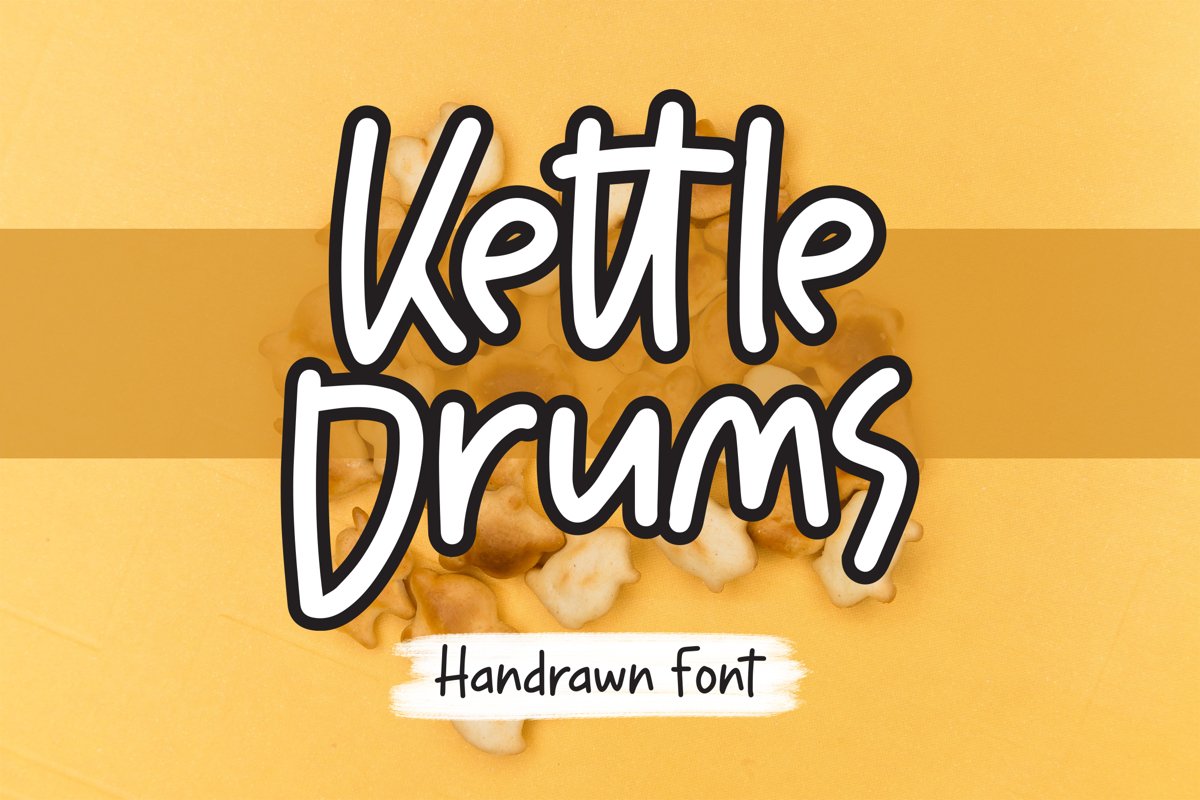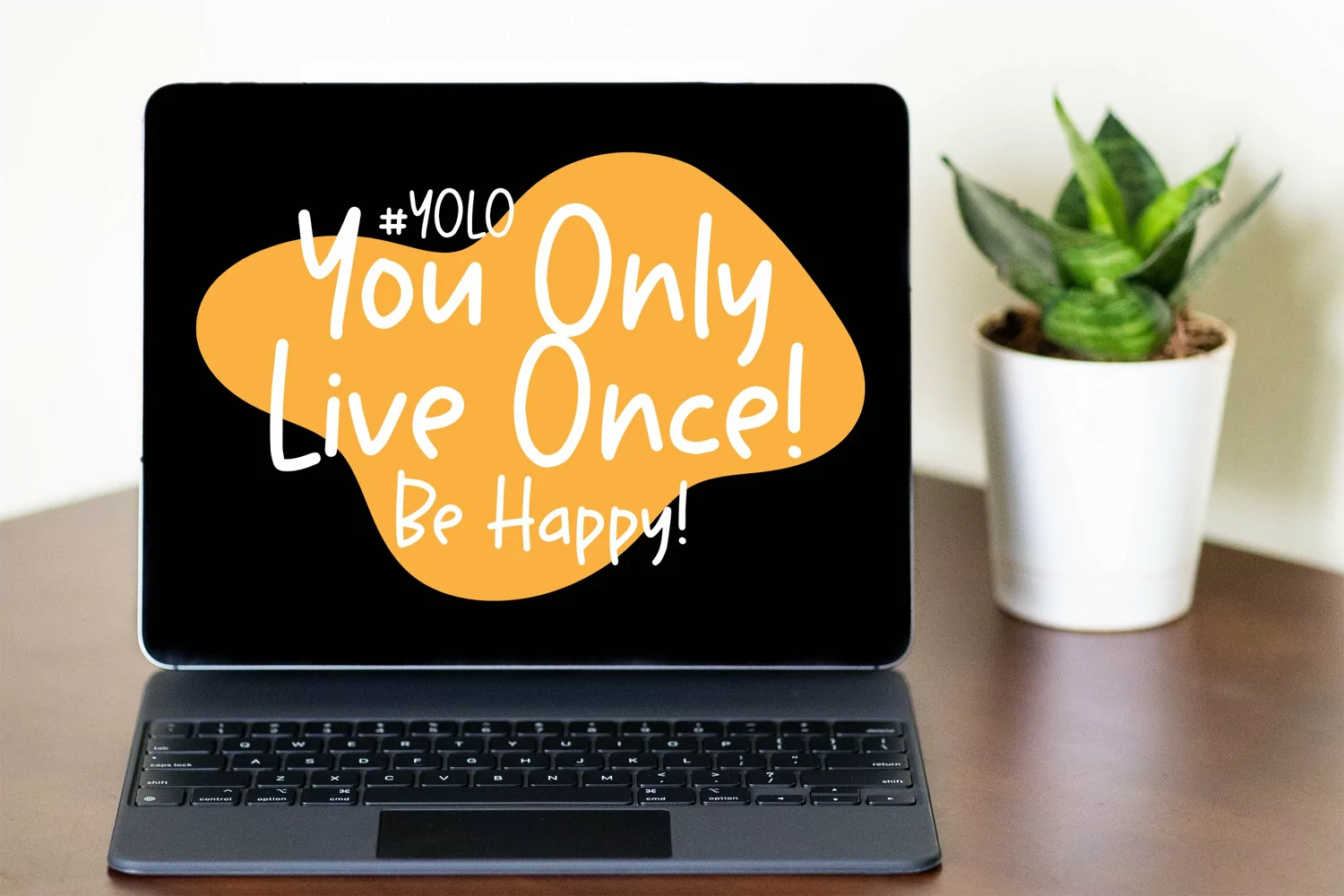
Kettledrums - Handrawn Font that contain lowercase, uppercase, symbol, and also support multi language. There’s a lot ligatures in this font. This Font also comes with ligatures, alternates and many more. this font suitable for fashion, branding, catalog and other design what you want.